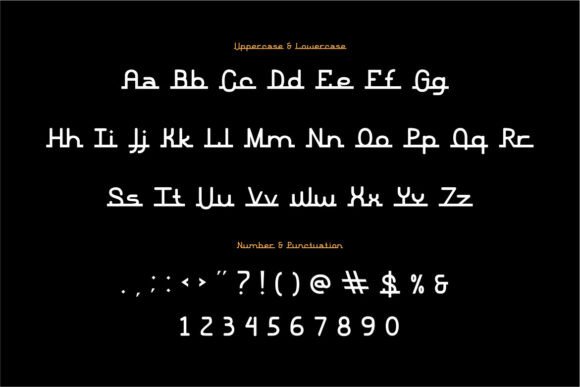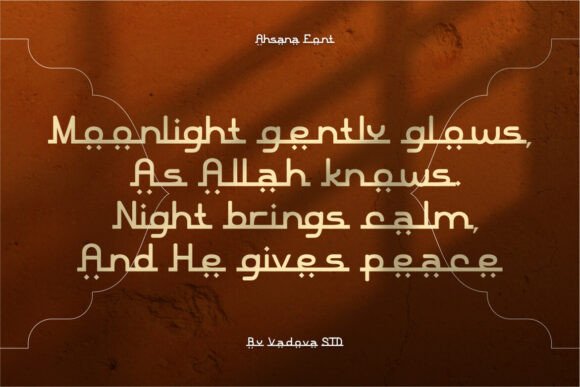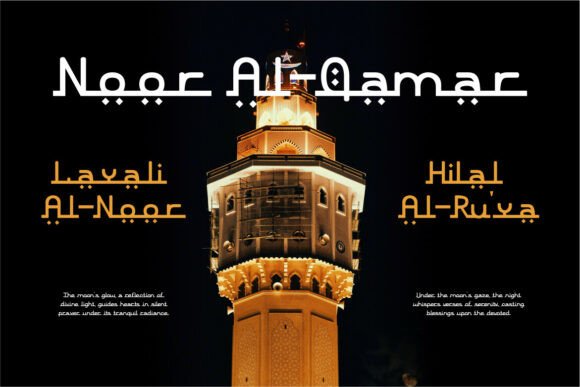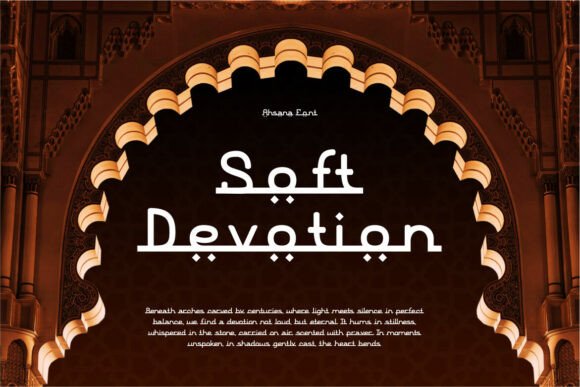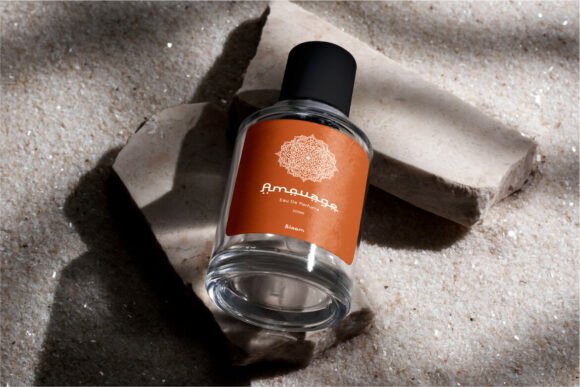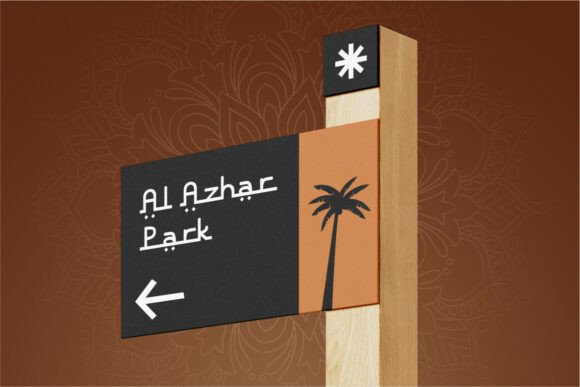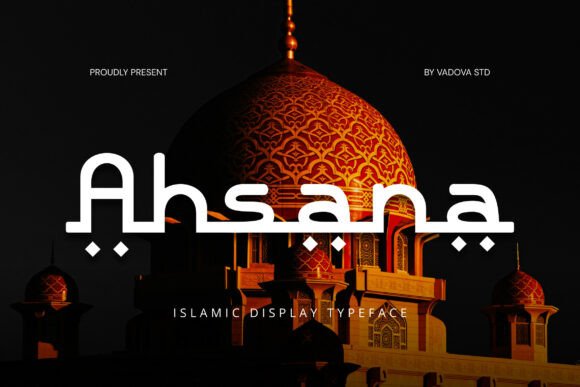
Ahsana Font: A Beautiful Blend of Traditional Arabic Calligraphy and Modern Design
In the world of typography, few fonts have managed to capture the essence of traditional Arabic calligraphy and Islamic art as elegantly as Ahsana Font. Designed with a deep understanding of classical Islamic aesthetics, Ahsana is an Islamic display typeface that seamlessly blends traditional Arabic calligraphic elements with modern design sensibilities. In this article, we’ll explore the unique features of Ahsana Font, its design inspiration, and how it can elevate your design projects.
The Inspiration Behind Ahsana Font
Ahsana Font draws its inspiration from the rich tradition of Arabic calligraphy and Islamic architectural geometry. The font’s creator aimed to capture the rhythm, harmony, and beauty of classical Islamic design, which is characterized by intricate patterns, geometric shapes, and elegant letterforms. The result is a font that exudes a sense of elegance, sophistication, and cultural heritage.
Key Features of Ahsana Font
Ahsana Font boasts several distinctive features that set it apart from other display typefaces. Some of its key characteristics include:
• Horizontal Emphasis: Ahsana Font features horizontal emphasis, which gives it a unique and elegant appearance. This design element is reminiscent of traditional Arabic calligraphy, where horizontal strokes play a crucial role in creating a sense of balance and harmony.
• Decorative Dots: The font includes decorative dots that add a touch of sophistication and flair to its letterforms. These dots are carefully crafted to echo the intricate patterns found in Islamic art and architecture.
• Distinctive Strokes: Ahsana Font’s letterforms feature distinctive strokes that reflect the rhythm and harmony of classical Islamic design. These strokes are designed to create a sense of fluidity and movement, making the font perfect for display compositions.
• Comprehensive Character Set: Ahsana Font includes a comprehensive character set, comprising uppercase, lowercase, numerals, and punctuation marks. This makes it an excellent choice for designers who need a font that can handle a wide range of text elements.
Design Applications of Ahsana Font
Ahsana Font is an incredibly versatile typeface that can be used in a variety of design applications. Some of the most popular uses of this font include:
• Islamic Art and Design: Ahsana Font is an excellent choice for designers working on Islamic art and design projects. Its traditional Arabic calligraphic elements and Islamic geometric patterns make it perfect for creating authentic and culturally sensitive designs.
• Branding and Packaging: The font’s elegant and sophisticated appearance makes it an excellent choice for branding and packaging projects. Ahsana Font can add a touch of luxury and refinement to any brand identity.
• Poster Design: Ahsana Font’s display typeface design makes it perfect for poster design projects. Its decorative dots and distinctive strokes can add visual interest and create a striking impact.
• Digital Design: Ahsana Font can also be used in digital design projects, such as website headers, social media graphics, and mobile app interfaces. Its clear readability and elegant appearance make it an excellent choice for digital applications.
Tips for Using Ahsana Font
To get the most out of Ahsana Font, here are some tips to keep in mind:
• Use it for Display Purposes: Ahsana Font is designed for display purposes, so use it to create eye-catching headlines, titles, and captions.
• Experiment with Font Sizes: Ahsana Font looks great in a variety of font sizes. Experiment with different sizes to find the perfect balance for your design.
• Pair it with Other Fonts: Ahsana Font can be paired with other fonts to create a unique and visually appealing typography. Try pairing it with a sans-serif font for a modern look or a serif font for a more traditional feel.
Font Name Ahsana Font
Author Vadova Std
Ahsana Font is a beautiful and elegant Islamic display typeface that draws its inspiration from traditional Arabic calligraphy and Islamic art. Its unique features, such as horizontal emphasis, decorative dots, and distinctive strokes, make it perfect for designers looking to add a touch of cultural heritage and sophistication to their projects. With its comprehensive character set and versatility, Ahsana Font is an excellent choice for a wide range of design applications. Whether you’re working on Islamic art and design projects, branding and packaging, or digital design, Ahsana Font is sure to elevate your designs to the next level.